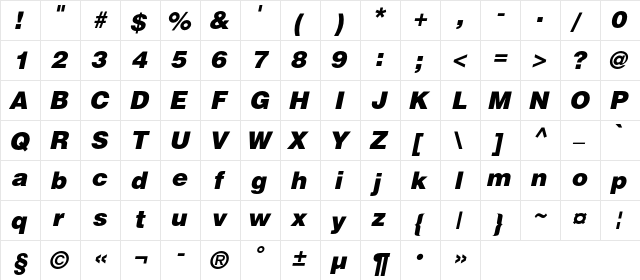
HeliosBlack Italic
Design Context for HeliosBlack Typeface
HeliosBlack takes a measured approach to typography — its balanced proportions and neutral character make it a reliable workhorse for both digital and print work. Its italic angle brings a sense of urgency and motion to the letterforms.
Pro Tip: Use HeliosBlack for emphasis, pull quotes, and subheadings where its slanted energy can add rhythm to the layout.